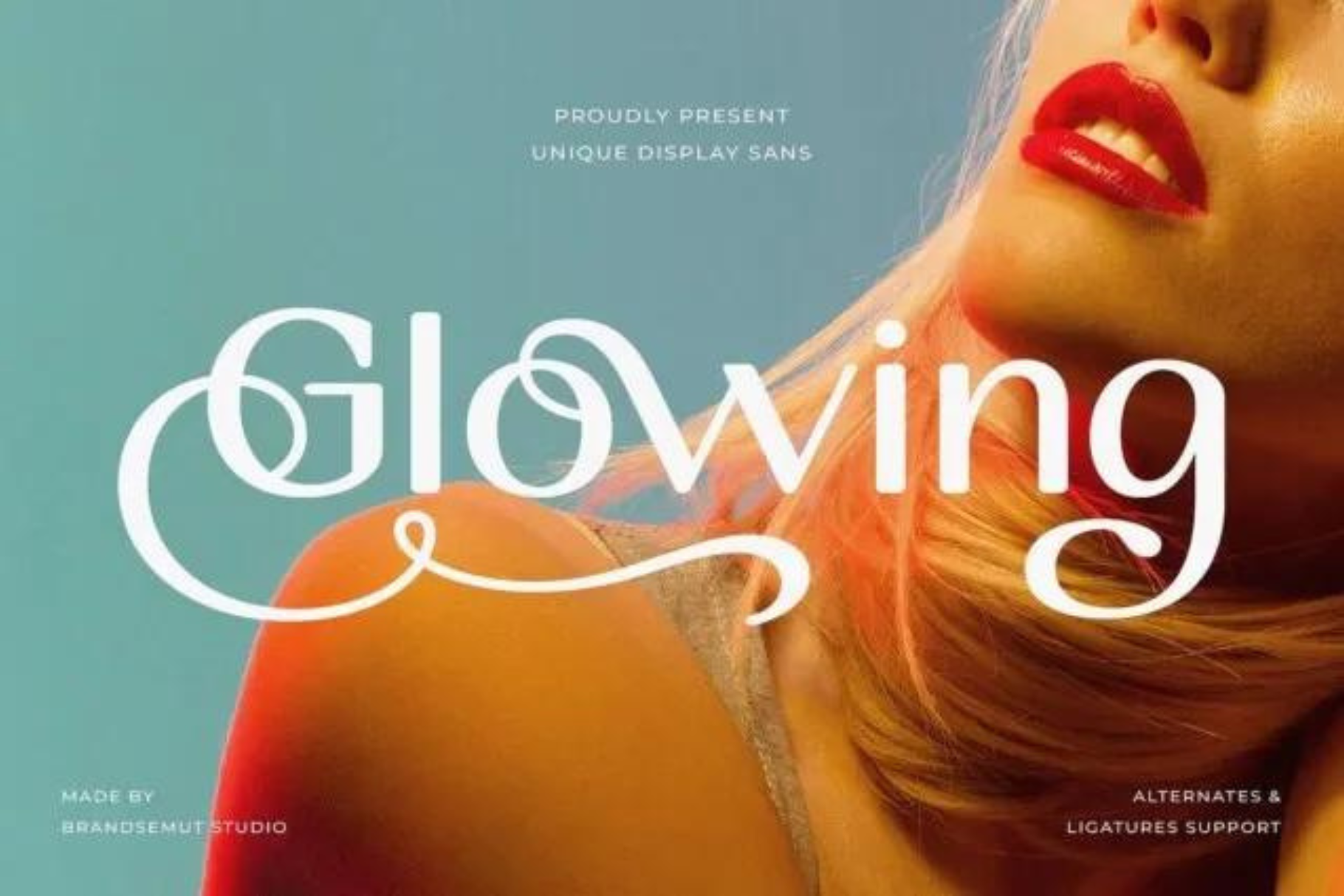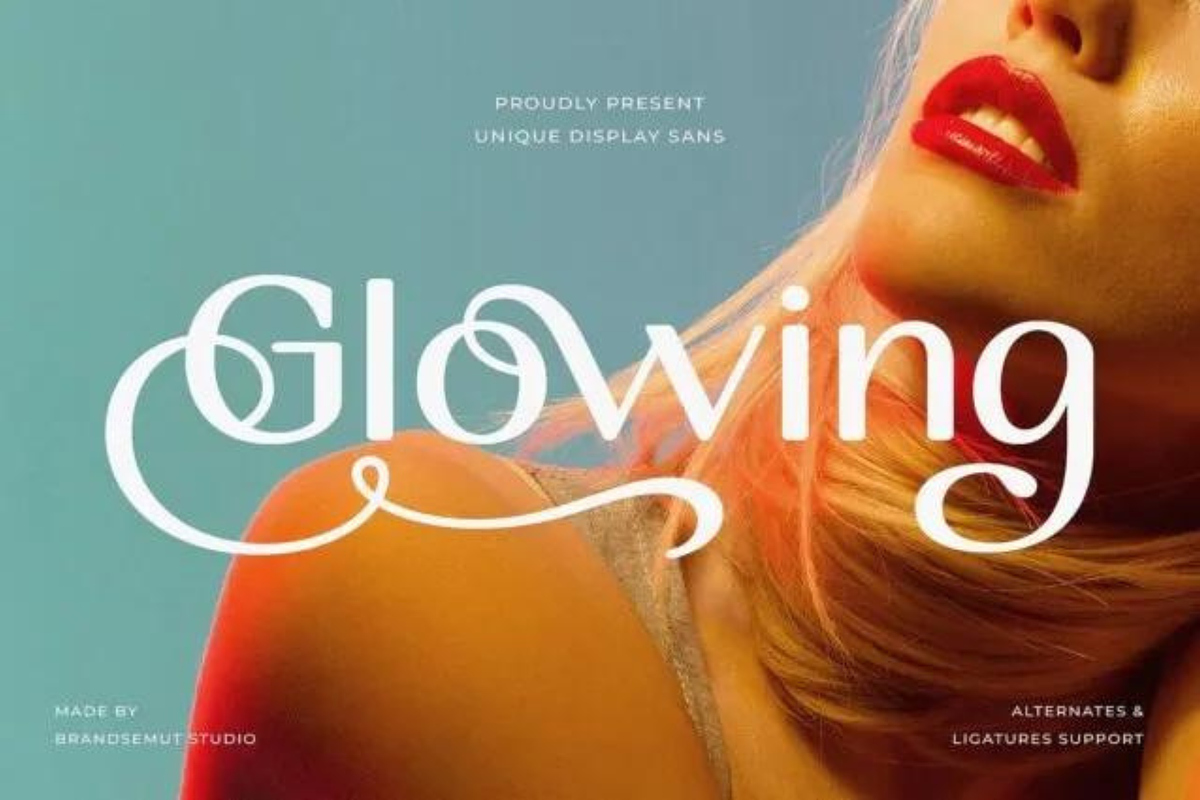
Glowing Font
Glowing Font is a ligature filled sans serif typeface that’s perfect for any luxury design, best used as a display for headings, logos, branding, magazines, product packaging and invitations. Glowing equipped with Ligature and many Alternates and come with clean lines and smooth curves give any project an extra touch of class.